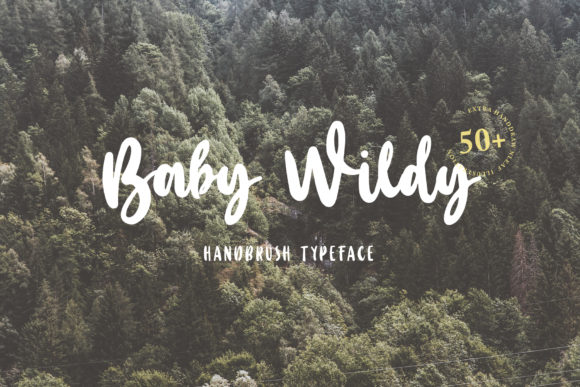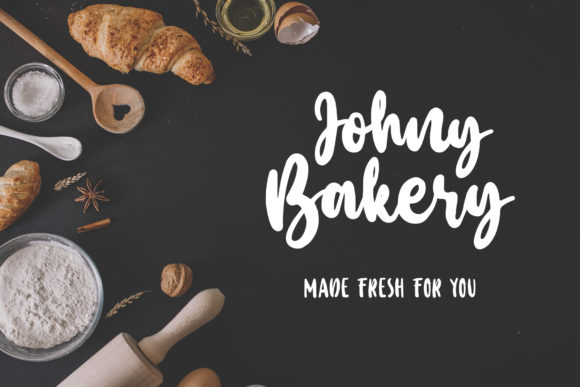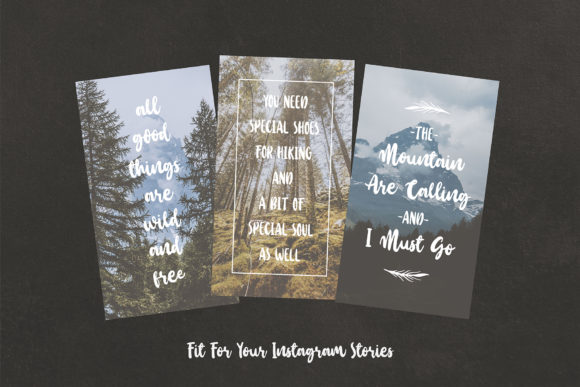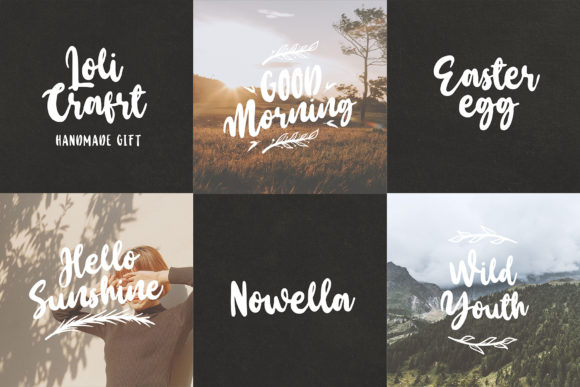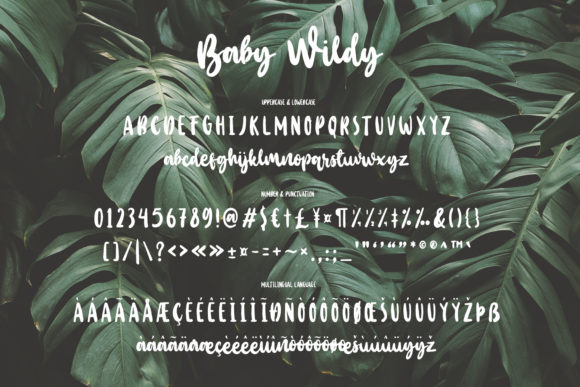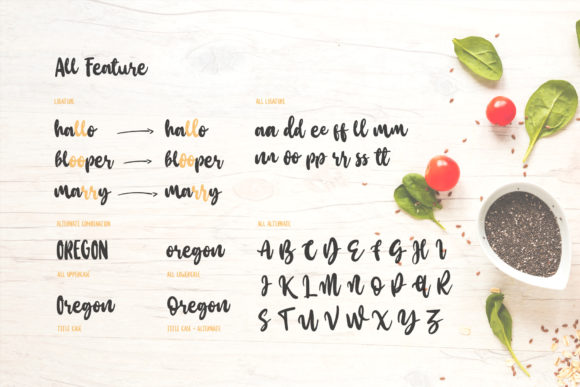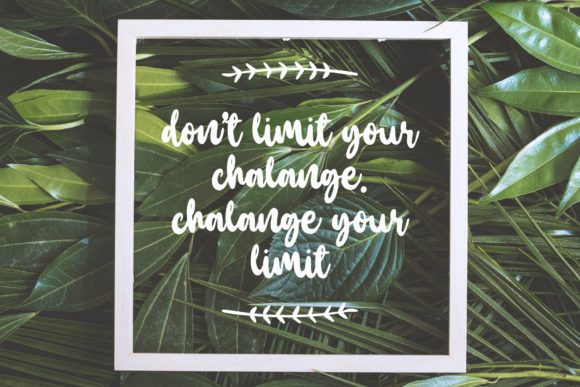
HomeScript FontsBaby Wildy Font Script Fonts Baby Wildy Font FacebookXPinterestWhatsApp Baby Wildy Font Poster 2 Baby Wildy Font Poster 3 Baby Wildy Font Poster 4 Baby Wildy Font Poster 5 Baby Wildy Font Poster 6 Baby Wildy Font Poster 7 Baby Wildy Font Poster 8 About Baby Wildy Font Baby Wildy is an adventurous and daring handwritten font with a bold twist. Fall in love with its organic charm! DOWNLOAD ON CREATIVE FABRICAThis font is sold and delivered by Creative Fabrica. Font Canyon may earn a commission if you buy through this link. People also explored Friendly Cat Mandala Monogram Font In Blossom Font Candy Land Font Roasting Font Post It Font Mood Boster Font Magnum Font Vacation Font Aerillyo Font 298 0 TagsBaby Wildy Font Previous articleRoslina FontNext articleWildy Sign Font LEAVE A REPLY Cancel reply Comment: Please enter your comment! Name:* Please enter your name here Email:* You have entered an incorrect email address! Please enter your email address here Website: Save my name, email, and website in this browser for the next time I comment. Personal Use Free Crellia Script Personal Use Free Read more about this font Machine House Personal Use Free Read more about this font Williana Personal Use Free Read more about this font Aragon Personal Use Free Read more about this font BLOG How to Cut Any Font on Cricut: Convert a Font to SVG (Free) Turn any font into a clean SVG so it cuts crisp on Cricut - a quick 3-step workflow using a free font-to-SVG tool. Top 10 Handwritten Fonts That Elevate Your Designs Elegant Wedding Invitation Fonts – Handwritten & Script Fonts Modern Sans-Serif Fonts That Brands Love in 2025